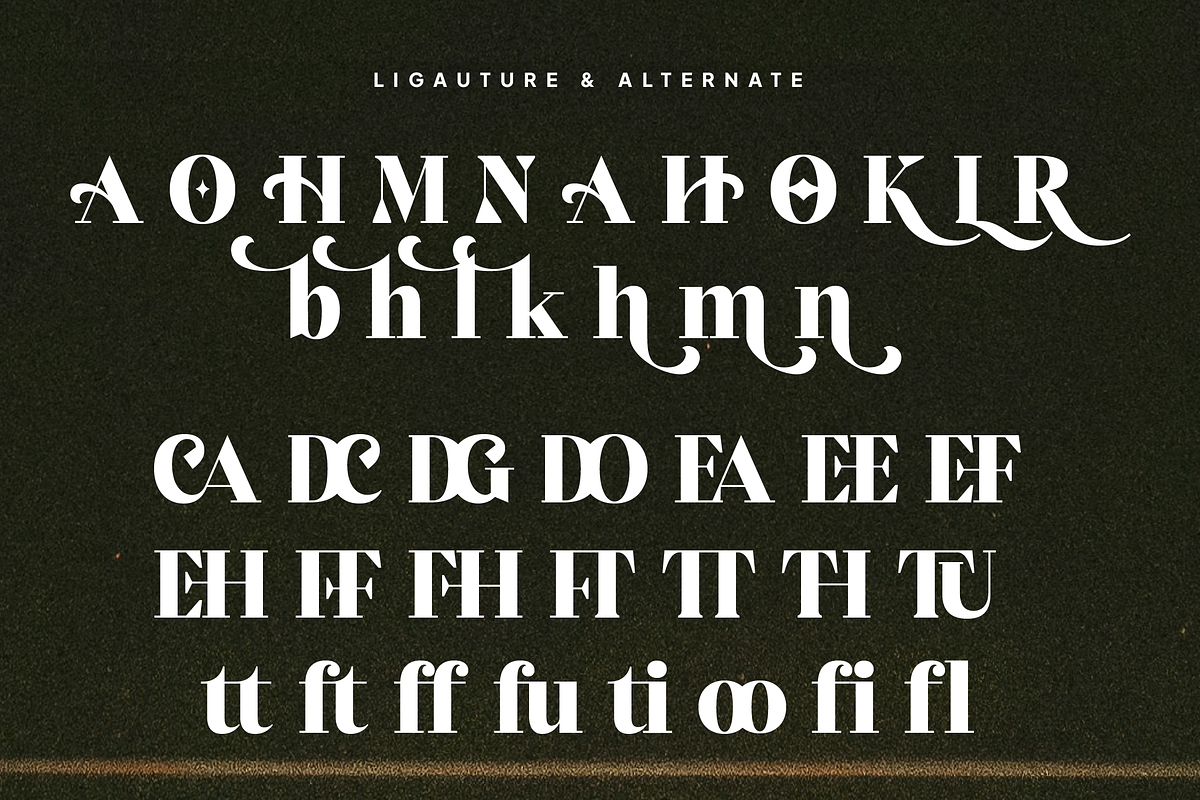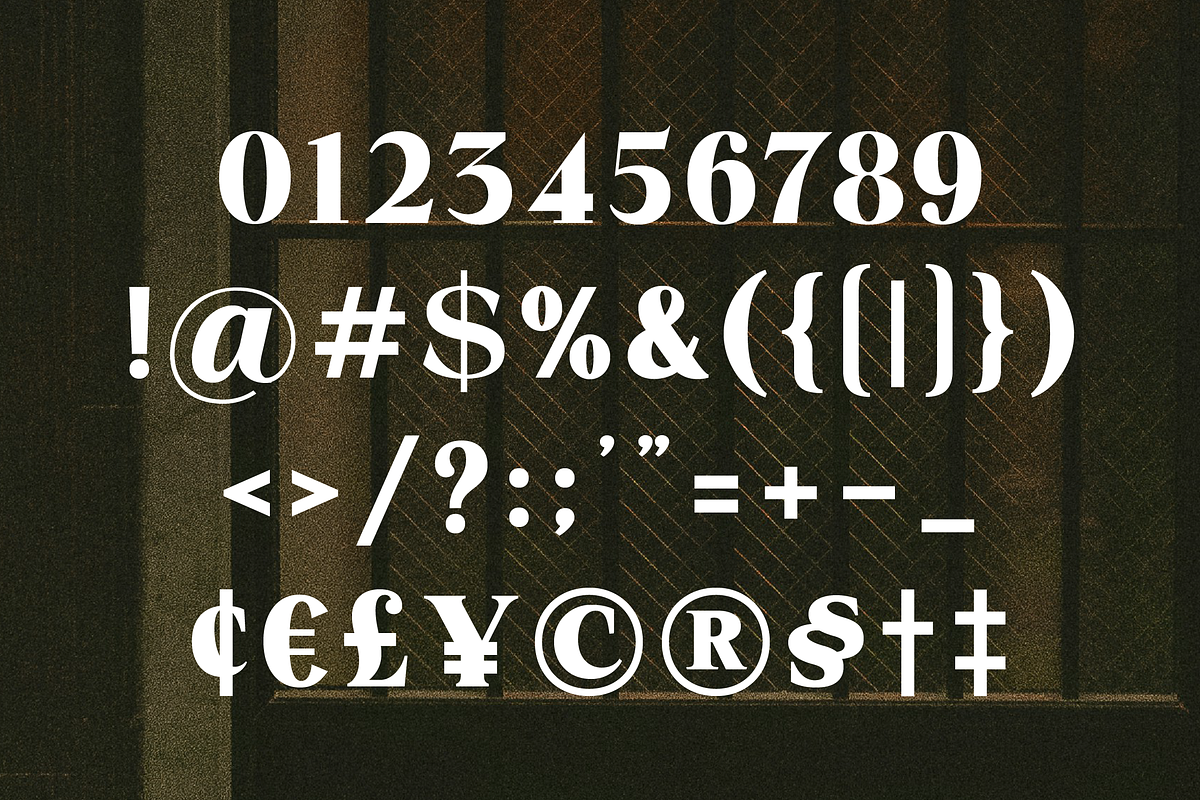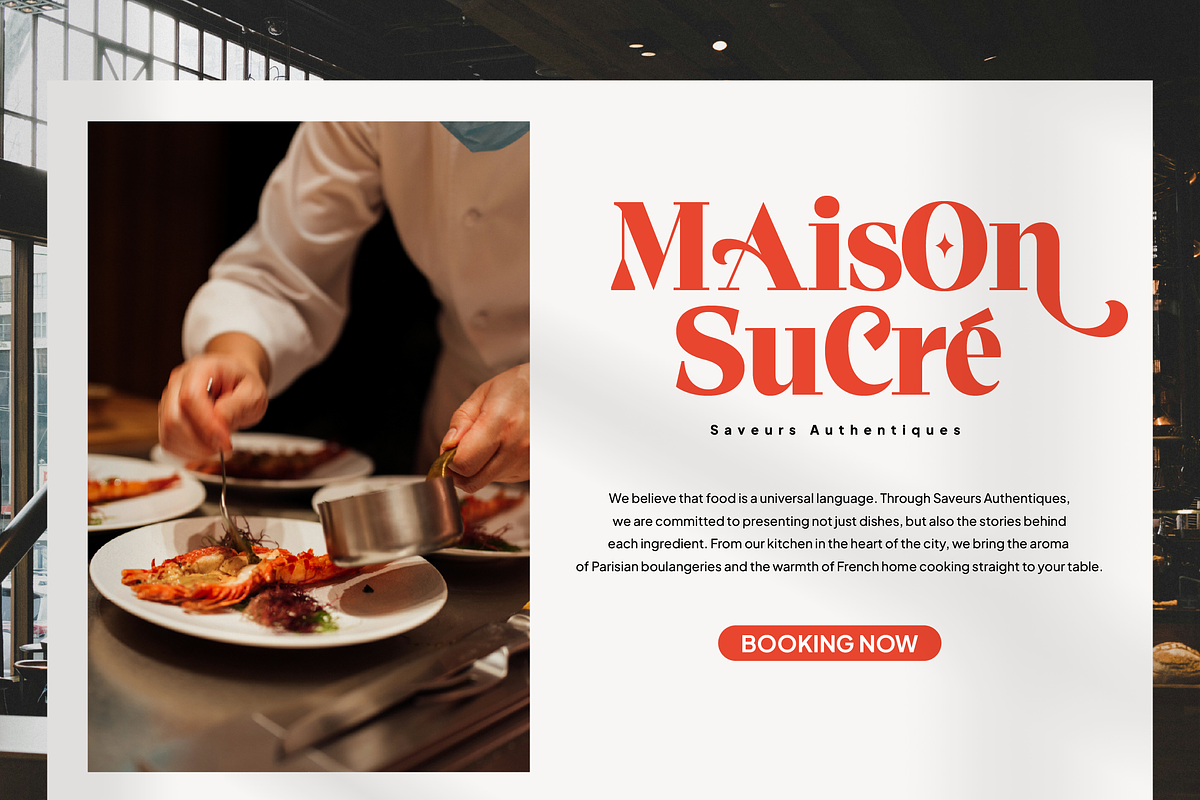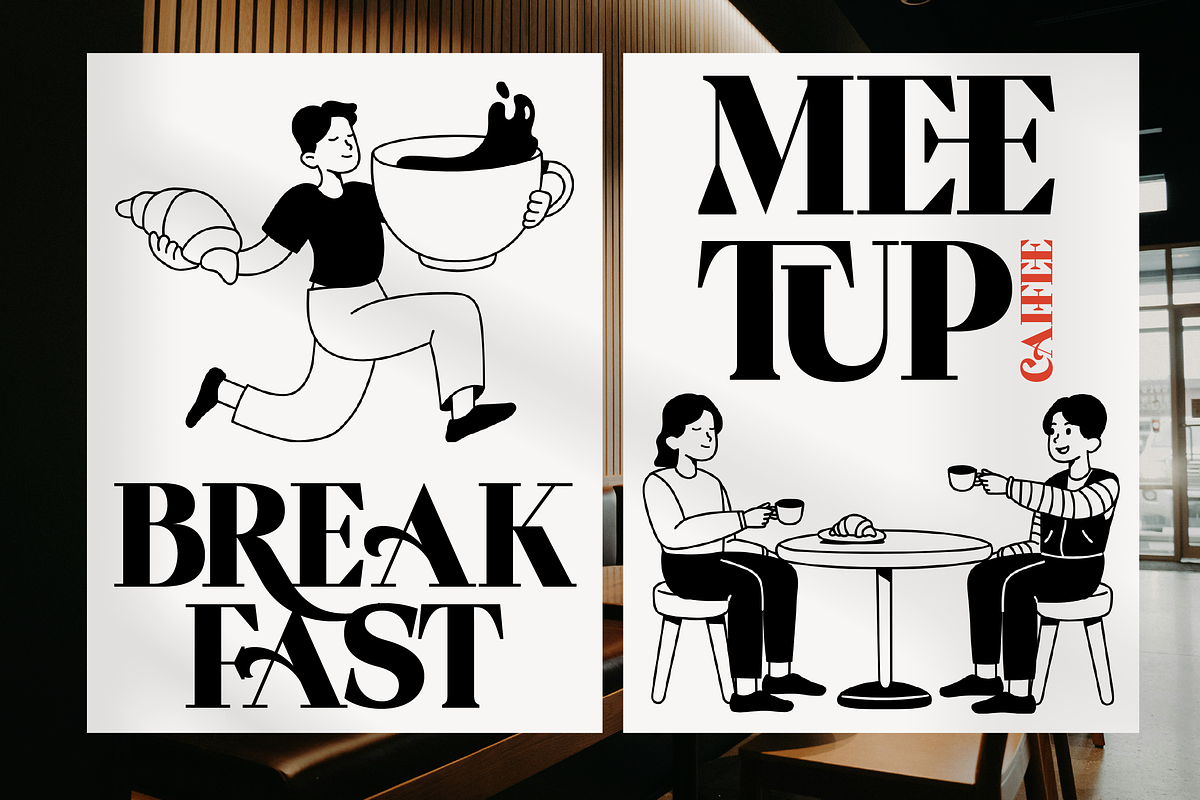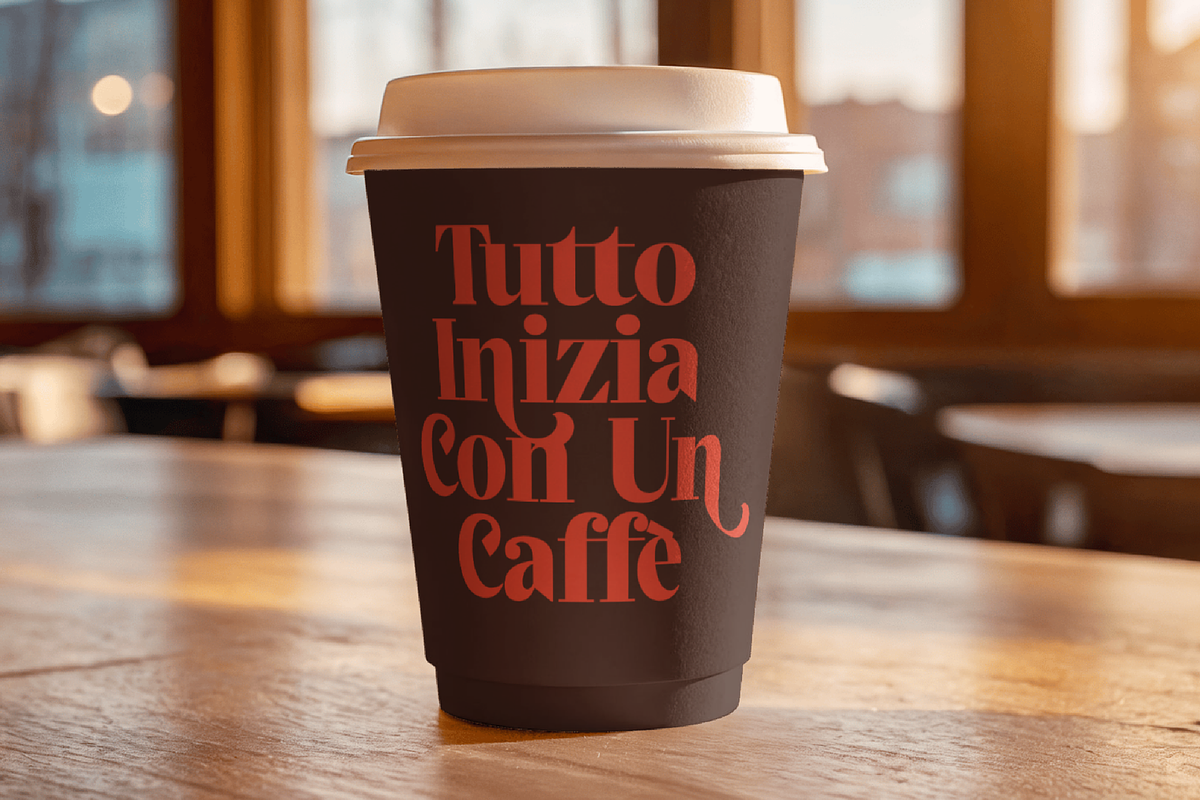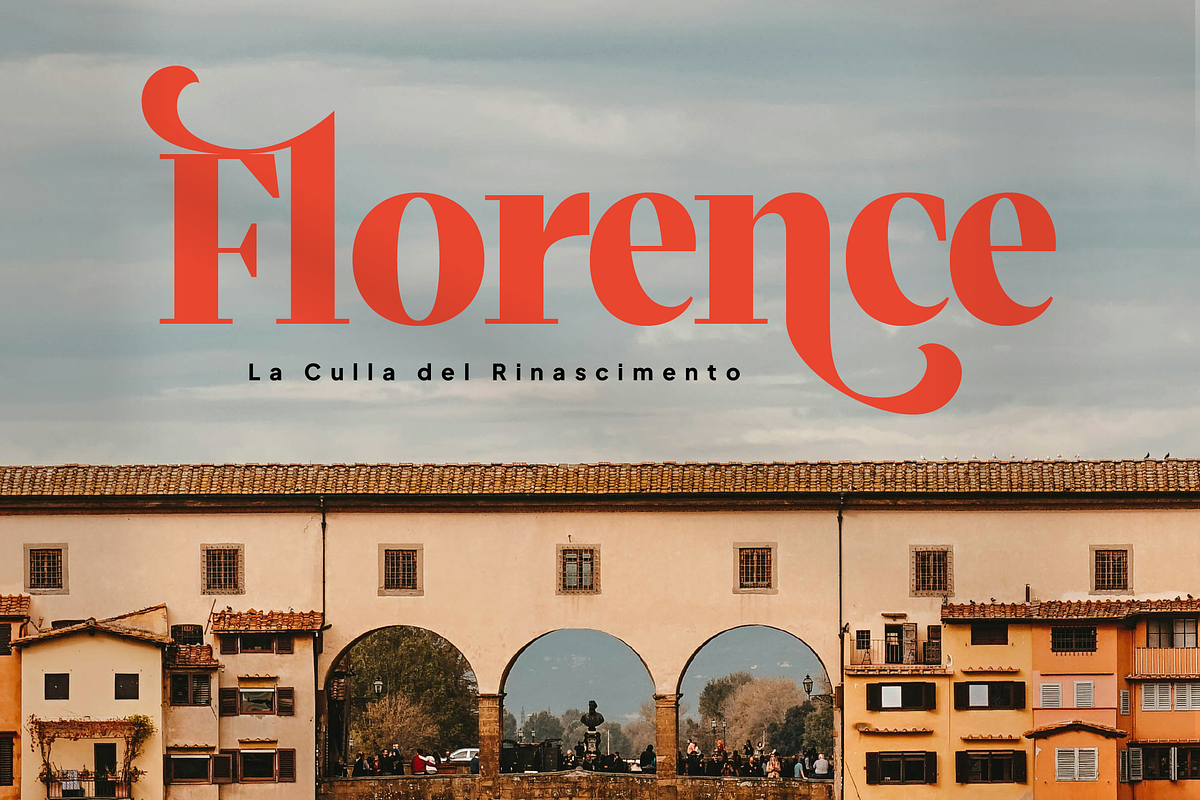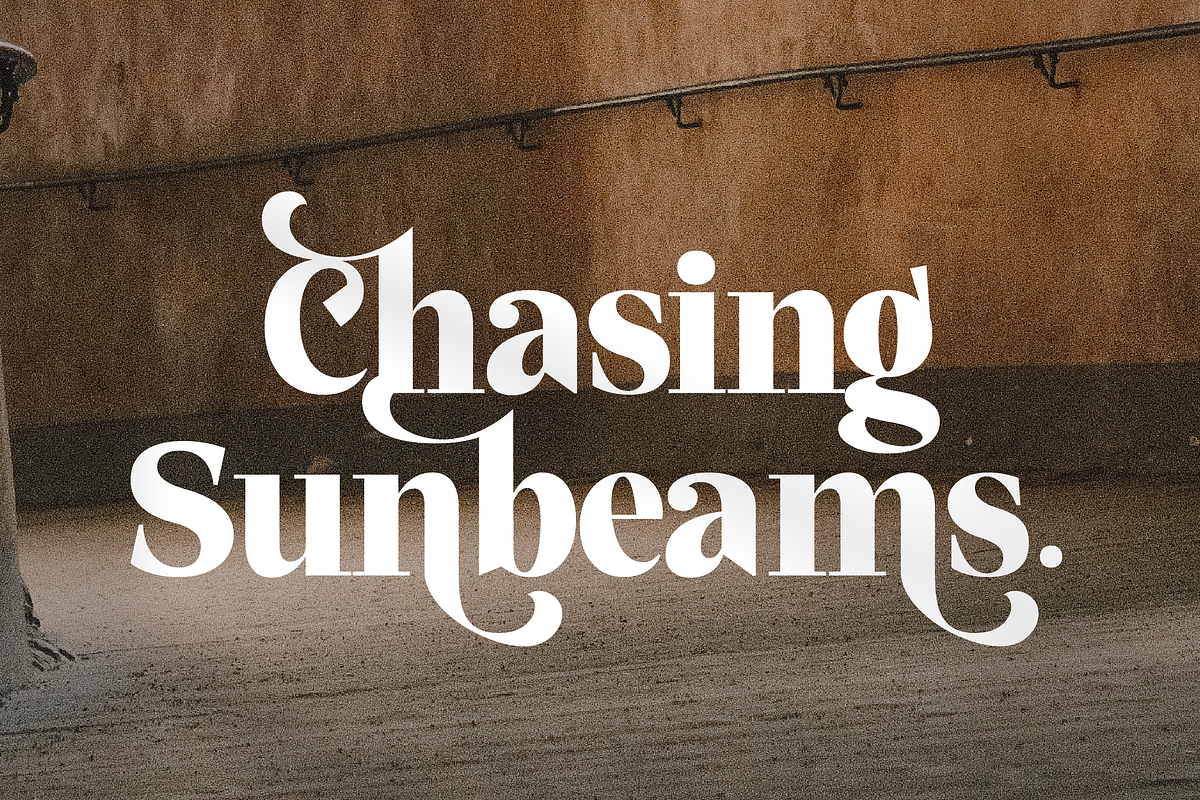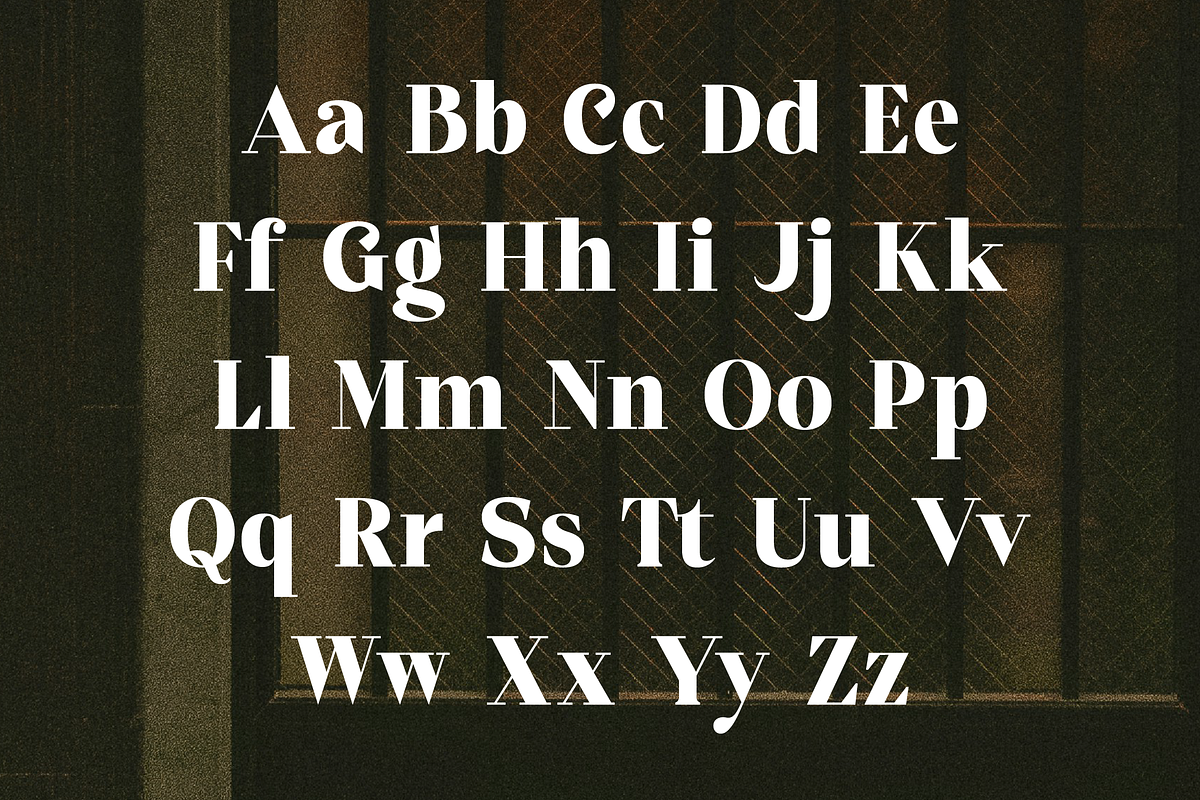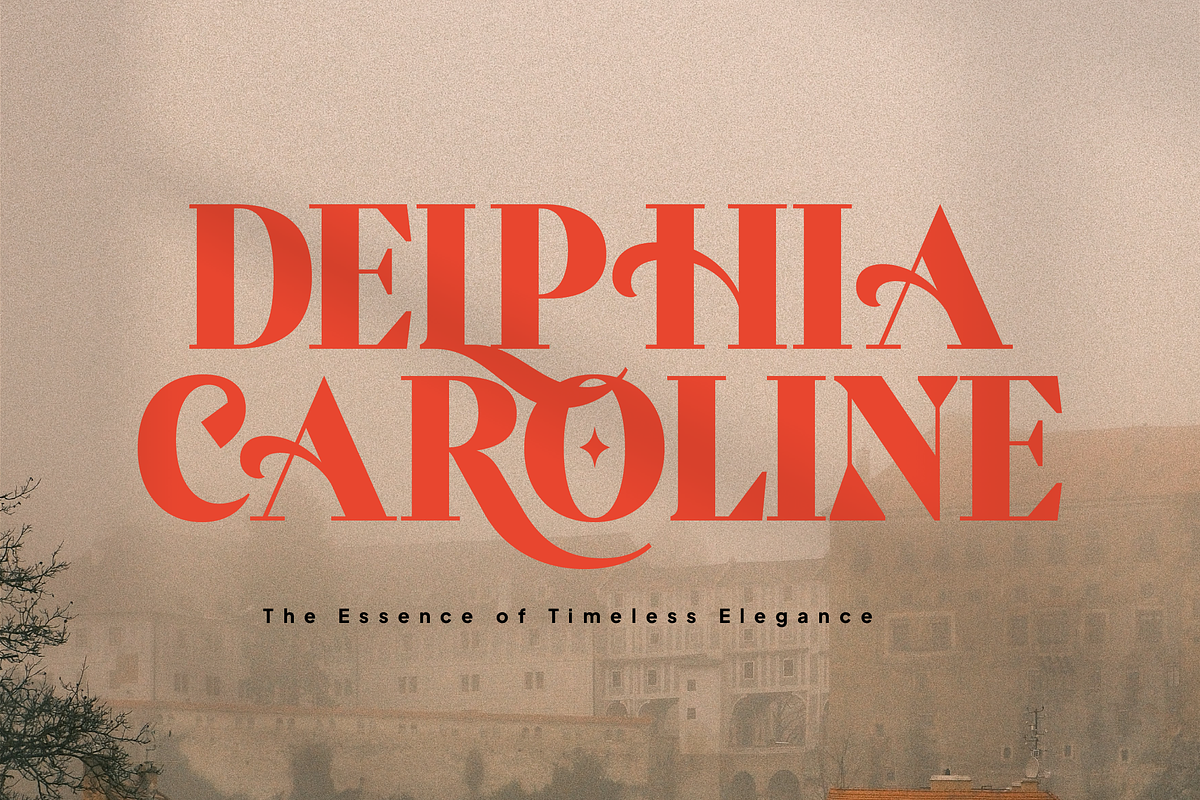
Helonea – Bold Display Font
Helonea: Where Heritage Meets Modern Sophistication
Imagine walking through a sun-drenched gallery in Milan or catching the glint of a vintage gold watch under a streetlamp. There is a specific kind of beauty that doesn’t need to shout to be noticed—it simply commands the room. This is the soul of Helonea.
Helonea is a visual narrative born from the desire to marry the grandeur of classical Roman proportions with the avant-garde spirit of modern fashion. It is the bridge between the “Classic Spirit” of history and the “Bold Identity” of tomorrow.
Ligatures & Alternates – Unlock a treasure trove of custom characters. From interlocking letters to dramatic swashes, you can customize your typography to feel like a bespoke piece of art.
Uppercase & Lowercase – Perfectly balanced weights that maintain legibility while maximizing stylistic impact.
Numerals & Punctuation – Every digit and symbol is crafted with the same serif precision as the letters, ensuring a cohesive look.
Multilingual Support – Speak to a global audience with extensive character support for various languages.
Design Highlights:
\\\`BOLD IDENTITY\\\` – Strong presence for high-end branding.
\\\`TIMELESS ELEGANCE\\\` – Sophisticated curves for luxury aesthetics.
VERSATILE DESIGN\\\` – Perfect for logos, mastheads, and editorial layouts.
Helonea is designed for those who don’t just follow trends—they set them. Whether it’s a high-end perfume bottle or a boutique fashion magazine, this font transforms text into a timeless statement.